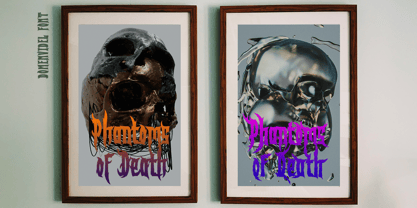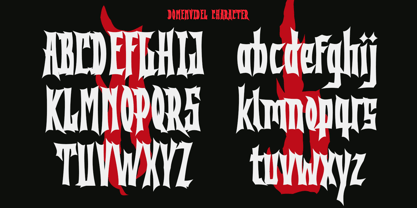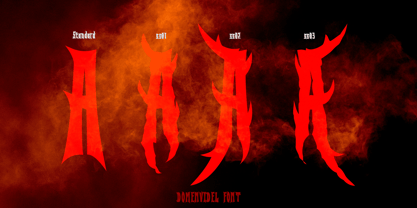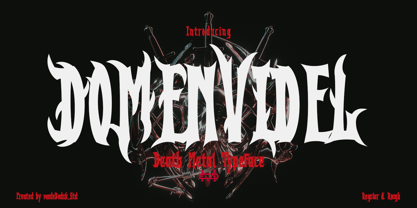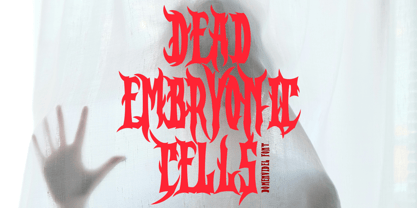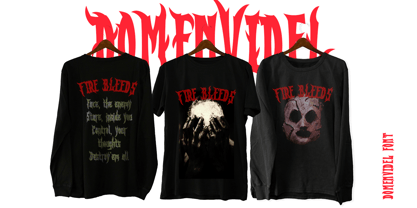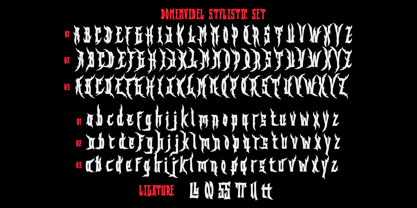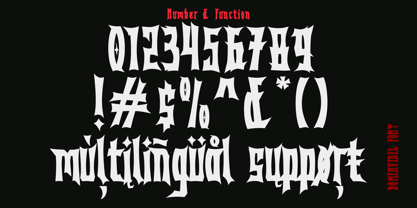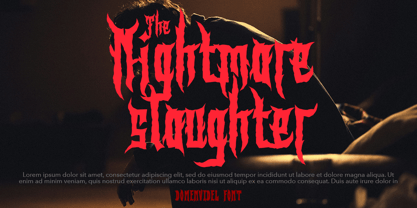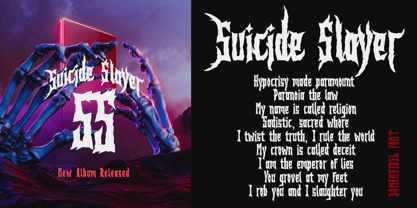
Domenvidel
by madeDeduk
The Domenvidel Font Family was designed by madededuk and published by madeDeduk. Domenvidel contains 2 styles. More about this family
Really excited to introduce Domenvidel is a bold heavy and death metal feel with regular and rough version to compliment your design, enhanced by haunting thorns. allowing characters to merge and create a visually arresting and strong typographic experience. suitable for band logos, merchandise, poster, apparel, or anything with a death metal feel.